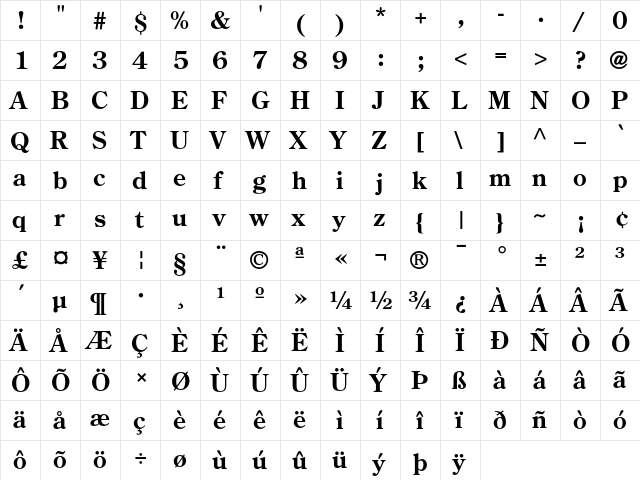
CenturyOldStyle Regular Font Preview
CenturyOldStyle Regular
Design Context for CenturyOldStyle Typeface
CenturyOldStyle brings classic typographic sensibility to the table — its serifs and measured letterforms reflect centuries of print heritage.
Pro Tip: Set CenturyOldStyle with slightly loose tracking in headlines to let each letterform's detail read clearly at display sizes.